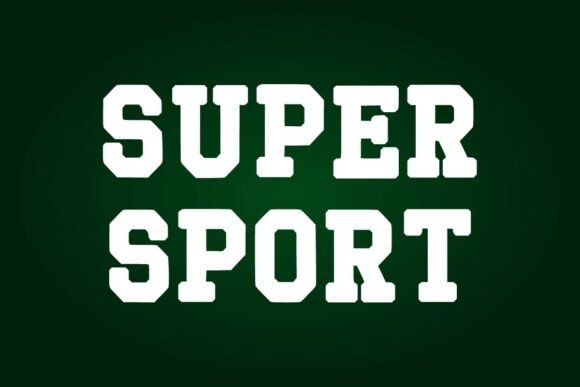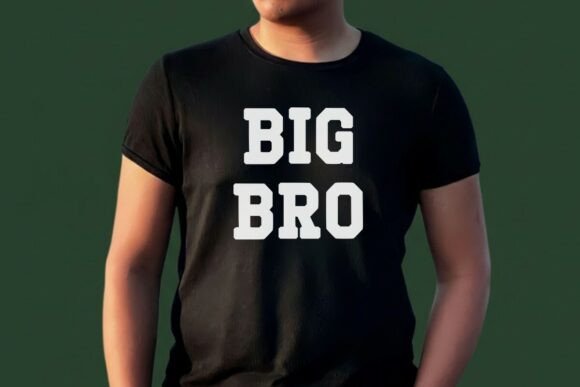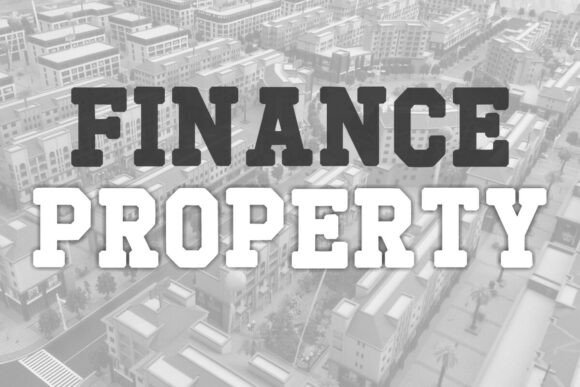
Introduction to League School Font
League School is a college and bold display font.
It is suitable for any winter and holiday branding project, product packaging, invitation, quote, t-shirt, label, poster, text effect, label, and logo that you wish to develop .
Key Features of League School Font
Why Choose League School Font?
League School Font offers exceptional quality and versatility, making it a valuable addition to your design toolkit. Whether you’re creating for personal projects or commercial use, League School Font delivers professional results.